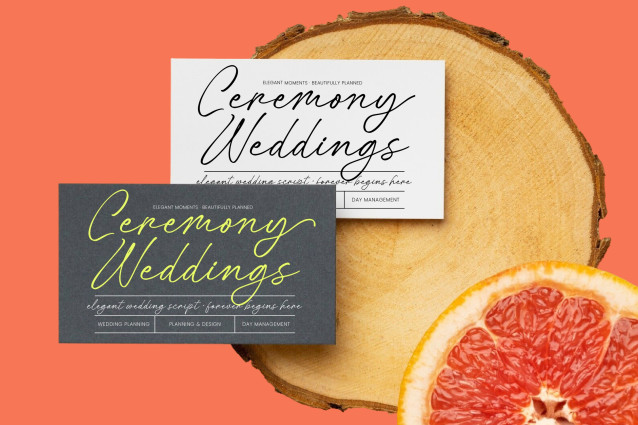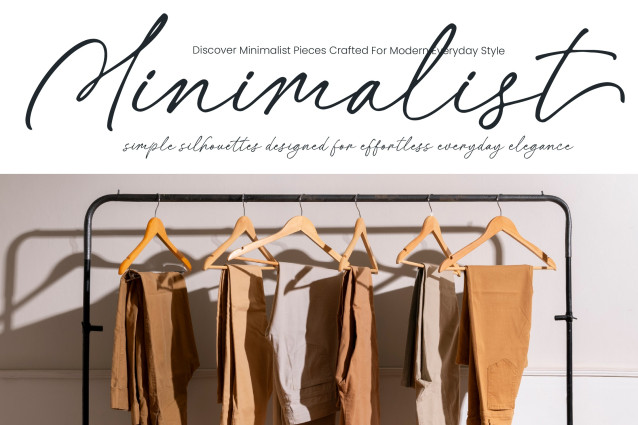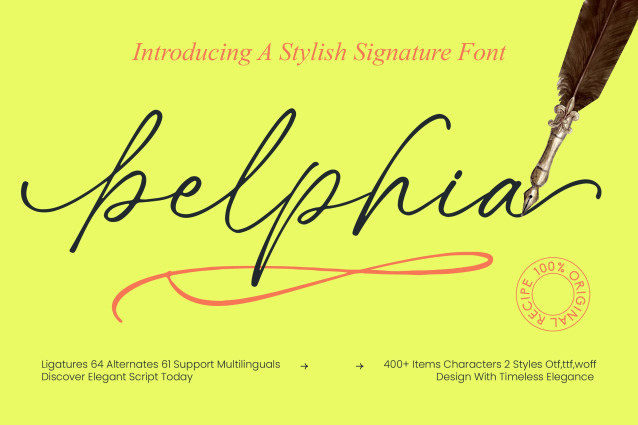
Belphia – Stylish Signature Font
Elevate your creative projects with the sophisticated charm of Belphia – Stylish Signature Font, a typeface designed to exude effortless elegance and high-end appeal. This monoline script captures the essence of authentic handwriting, offering a rhythmic flow that adds a personal, handcrafted touch to any composition. Its graceful curves and refined strokes make it a standout choice for designers looking to infuse their work with a sense of timeless luxury and modern flair.
Master the art of custom typography using the expansive features of Belphia – Stylish Signature Font, which includes over 400 characters and a robust selection of 64 ligatures and 61 alternates. These OpenType features allow for dynamic letter pairings, ensuring that your text looks uniquely bespoke rather than repetitive. By providing two distinct styles in formats like OTF, TTF, and WOFF, Belphia – Stylish Signature Font empowers creators to achieve a polished aesthetic that balances professional precision with artistic expression.